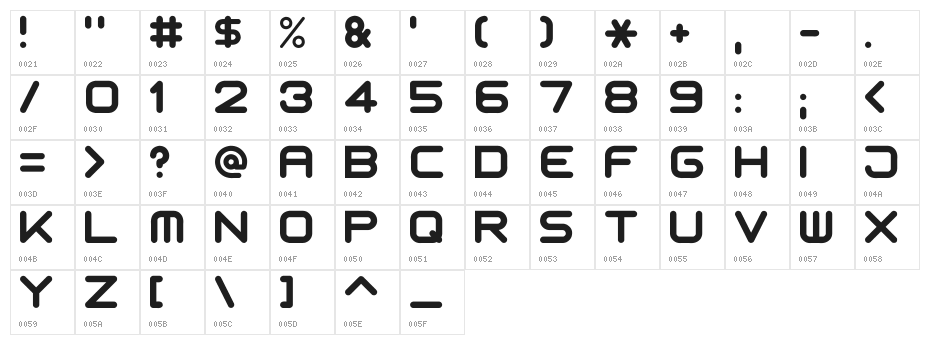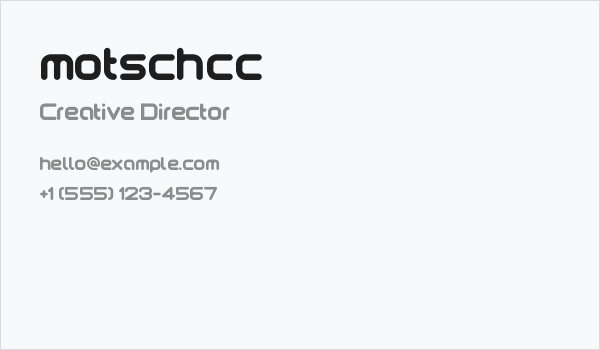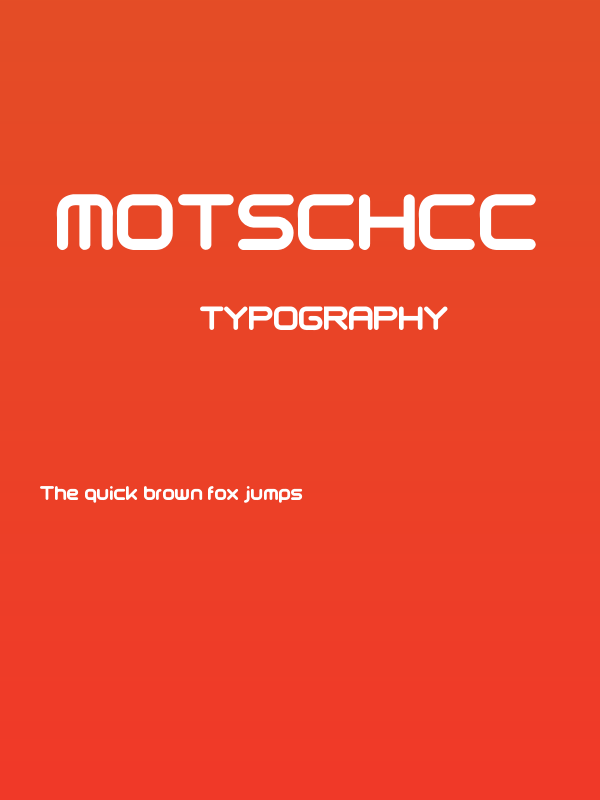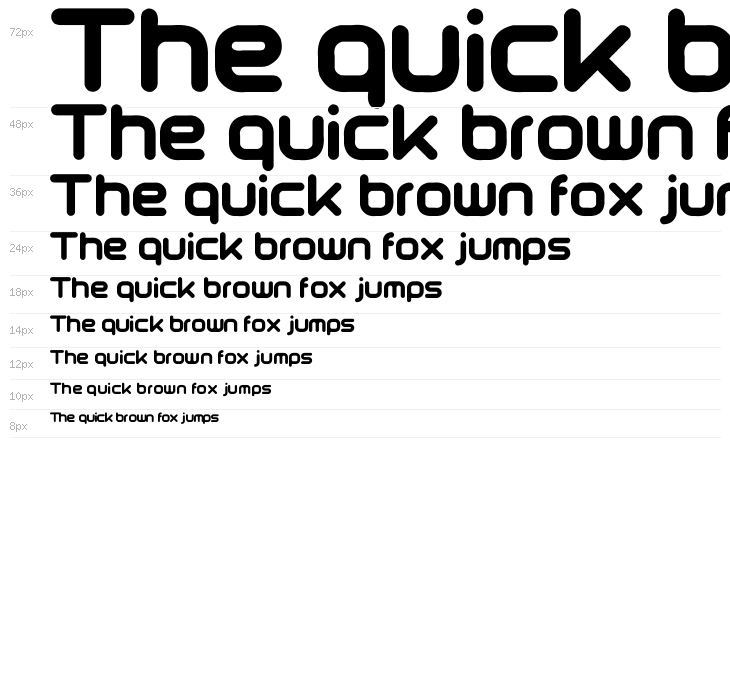
motschcc Font
| 用途 | Headlines, Logos, Digital Interfaces |
| おすすめプロジェクト | Ideal for technology branding, modern advertising, digital interfaces, and futuristic-themed projects. |